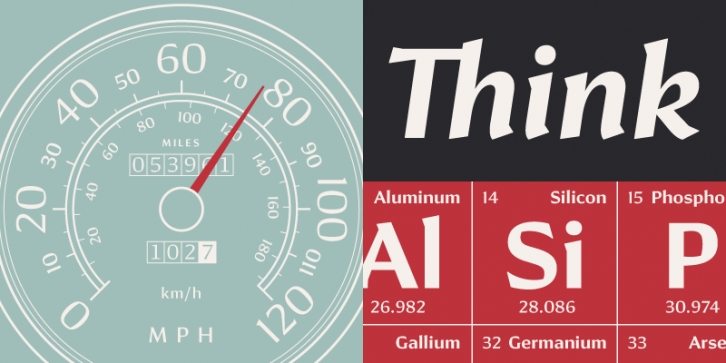
Conglomerate is a unique blend of sans and serif typographic traits resulting in a clean and versatile font family with large, open counters for legibility in text yet crisp details at display sizes.